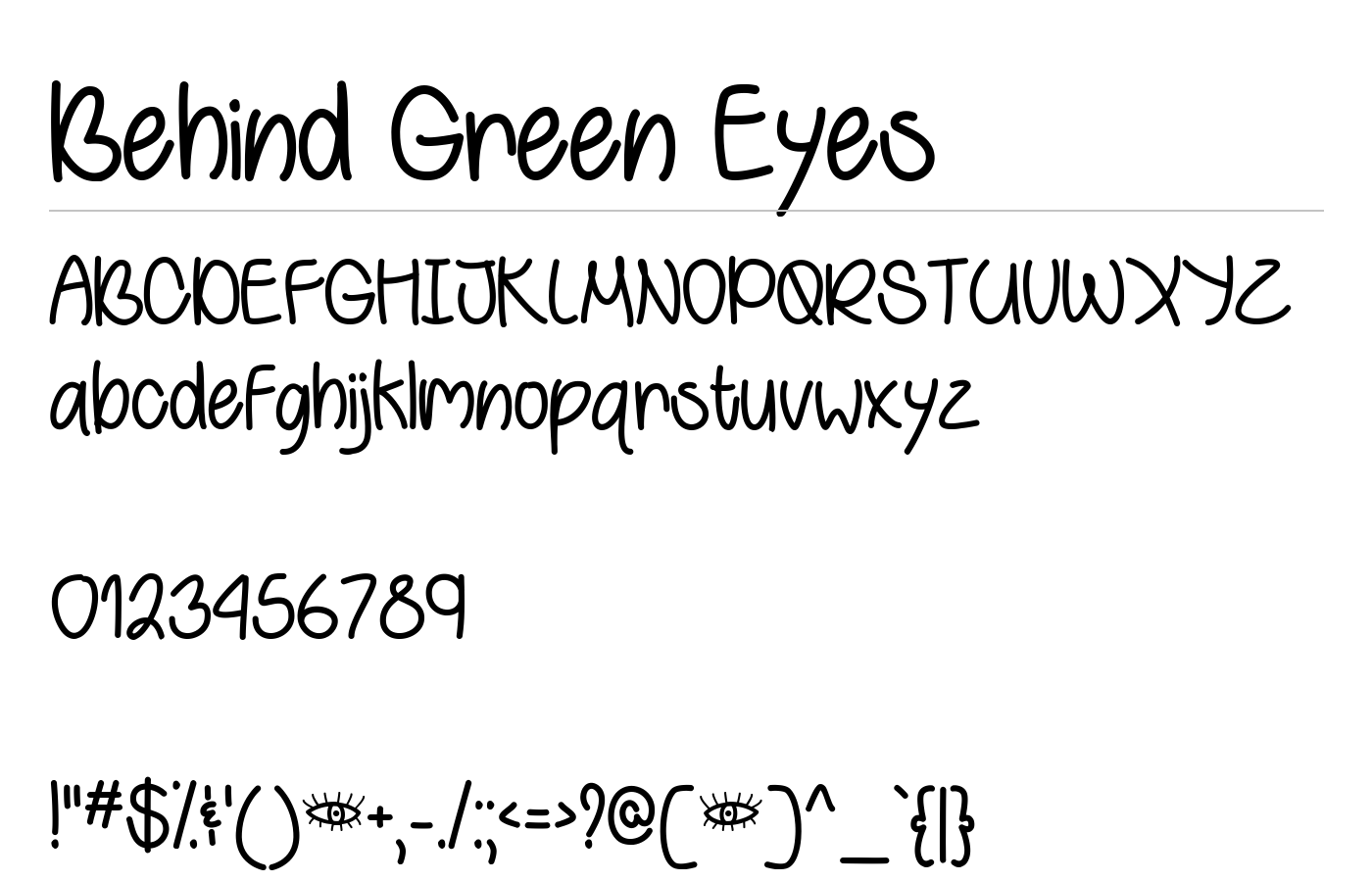
Behind Green Eyes is a playful, casual handwritten sans serif font with an informal and friendly feel. Its rounded, slightly irregular letterforms create a warm and approachable personality, making it ideal for creative projects, children’s materials, or lighthearted branding. The font works best in informal contexts such as invitations, social media graphics, and packaging where a personal, human touch is desired.
Behind Green Eyes Font
About Behind Green Eyes Font